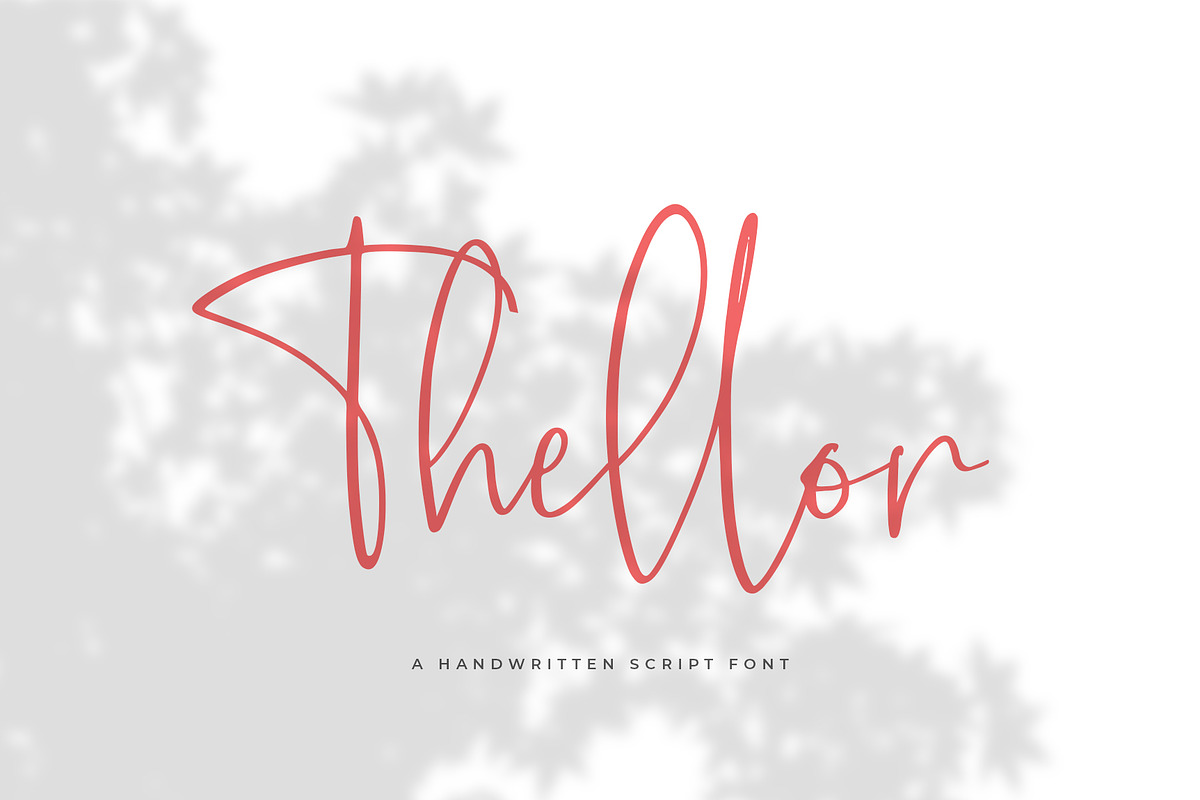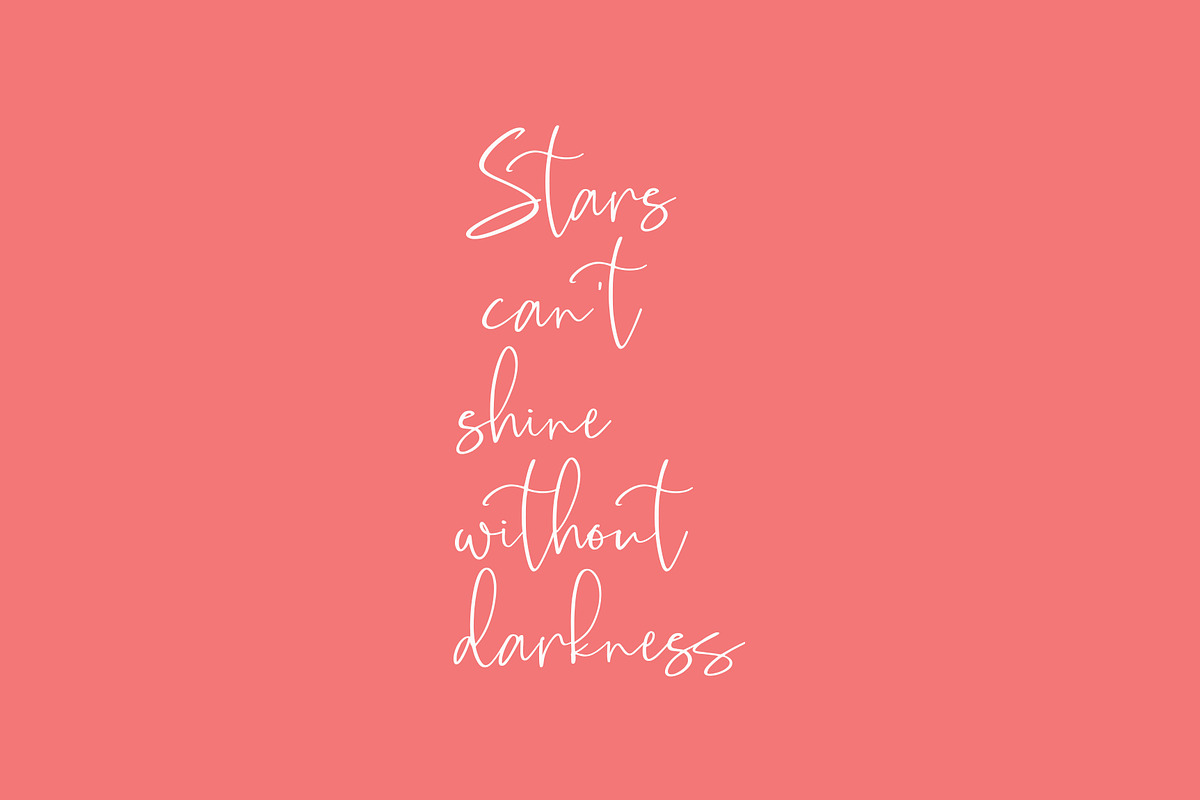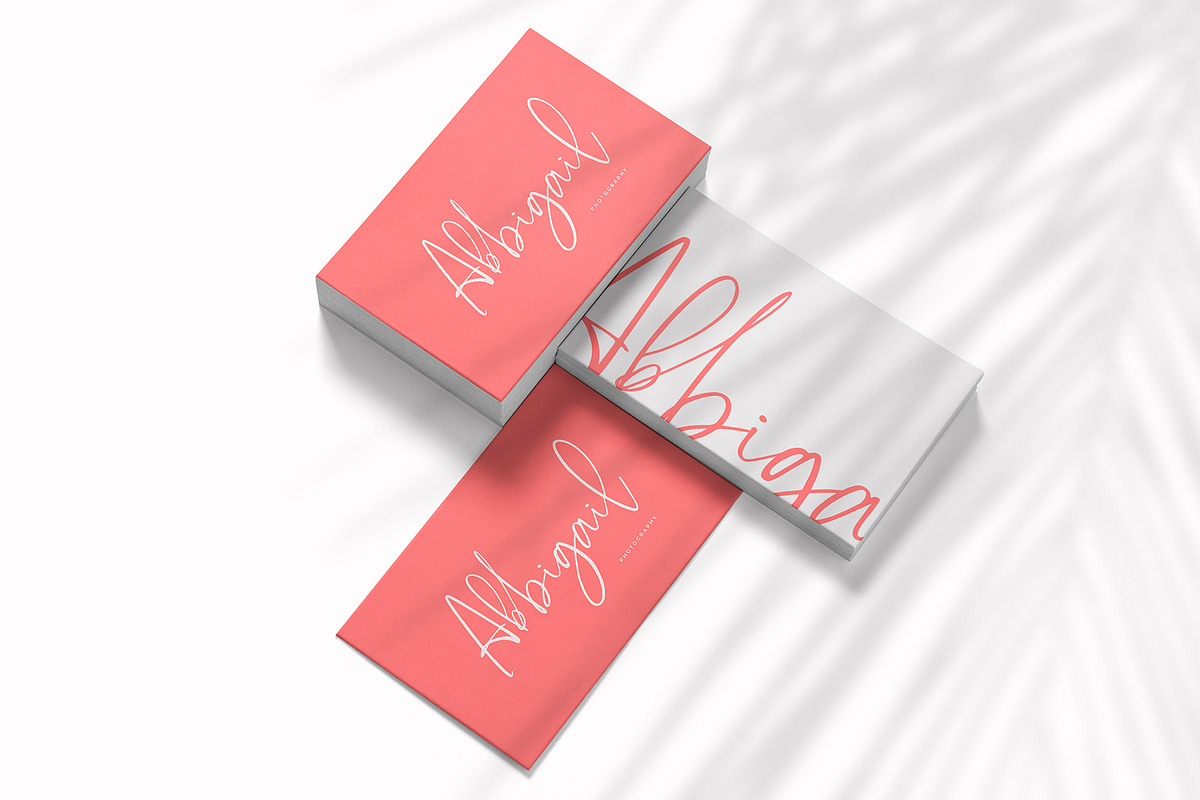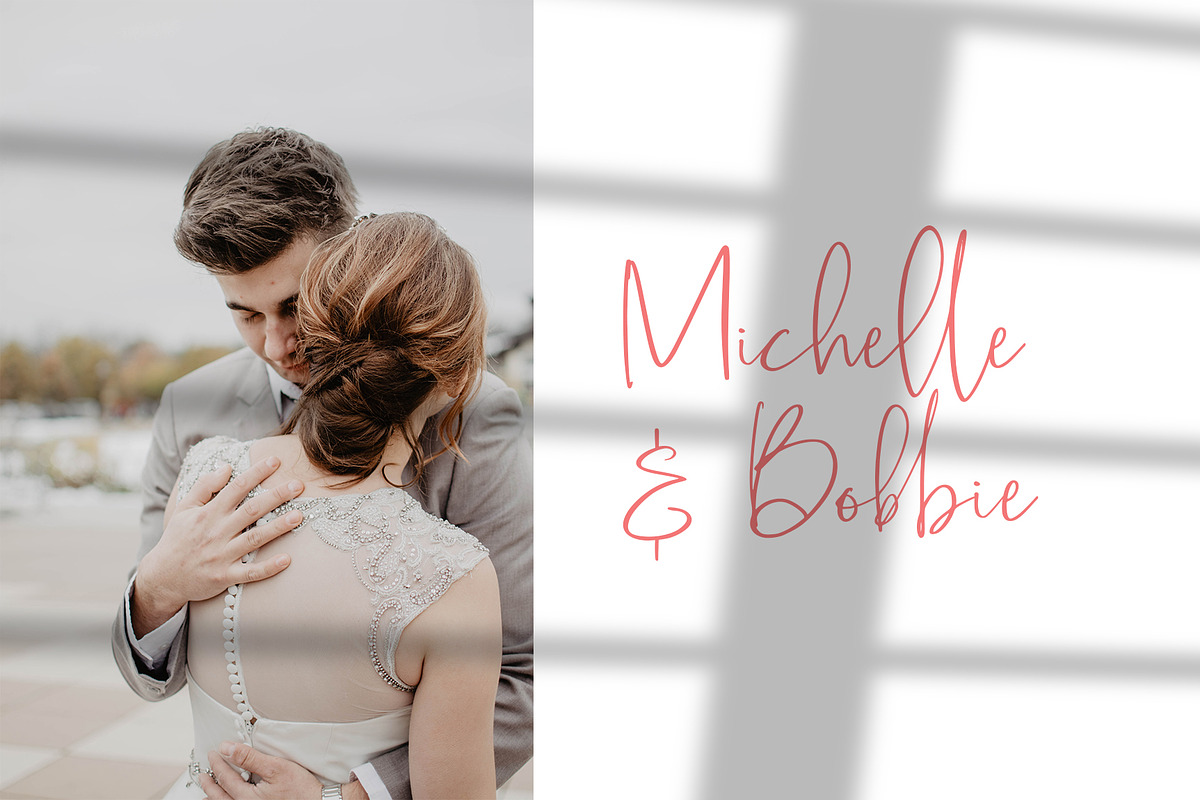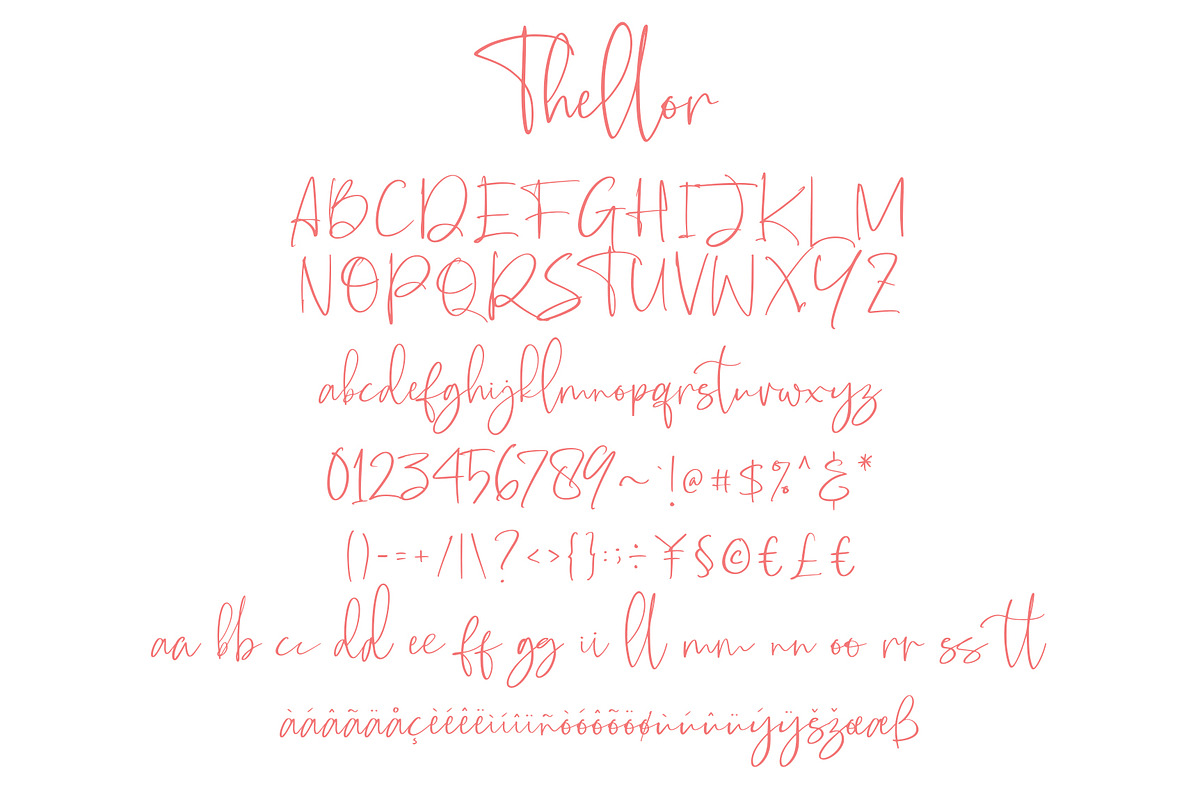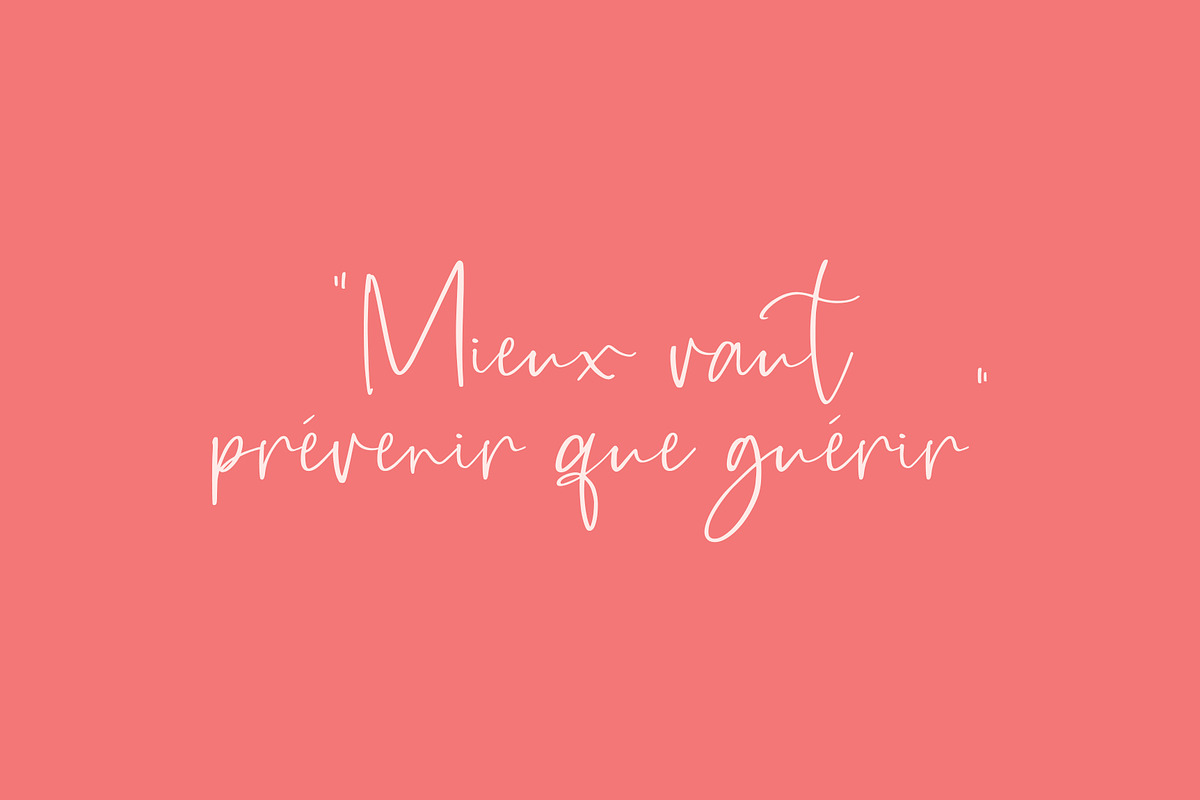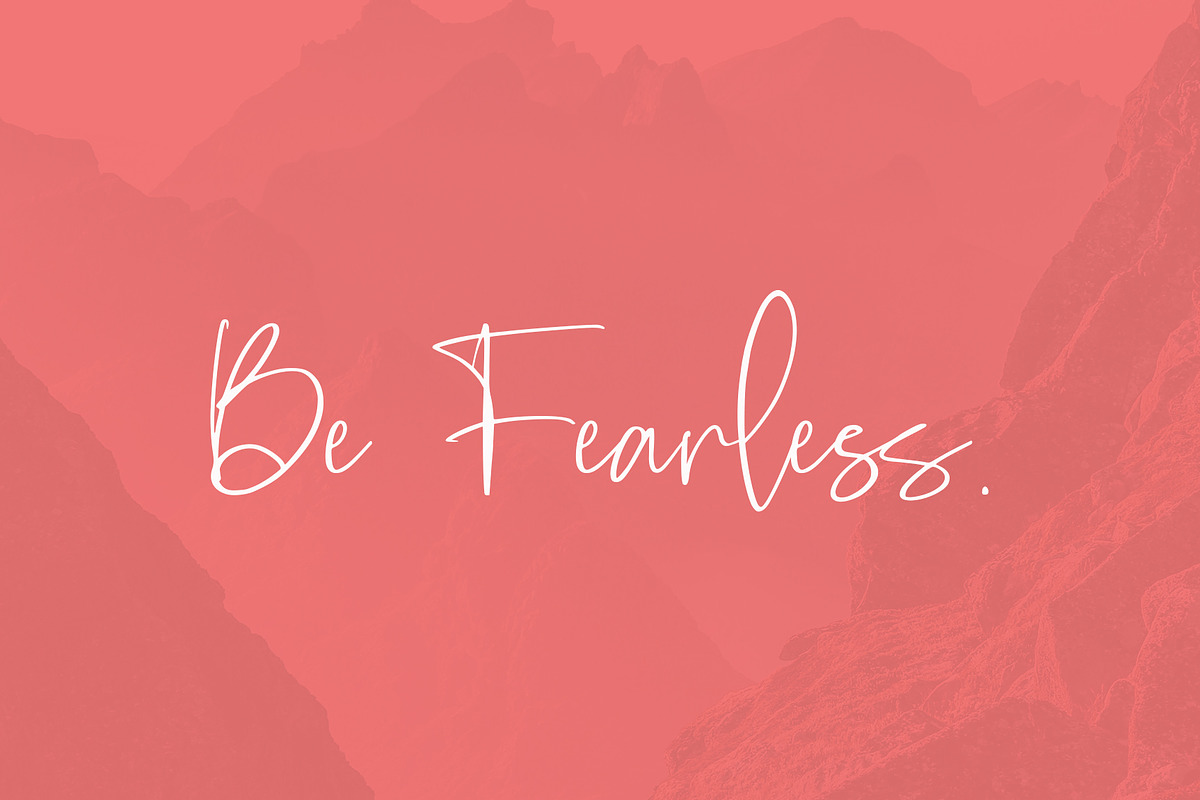
Thellor Font
Thellor is an elegant handwritten script font. Get inspired by its unique shape and character!
Why Thellor Font is worth a look
Thellor Font by Awanstudio fits naturally into Branding, posters, packaging, typography.